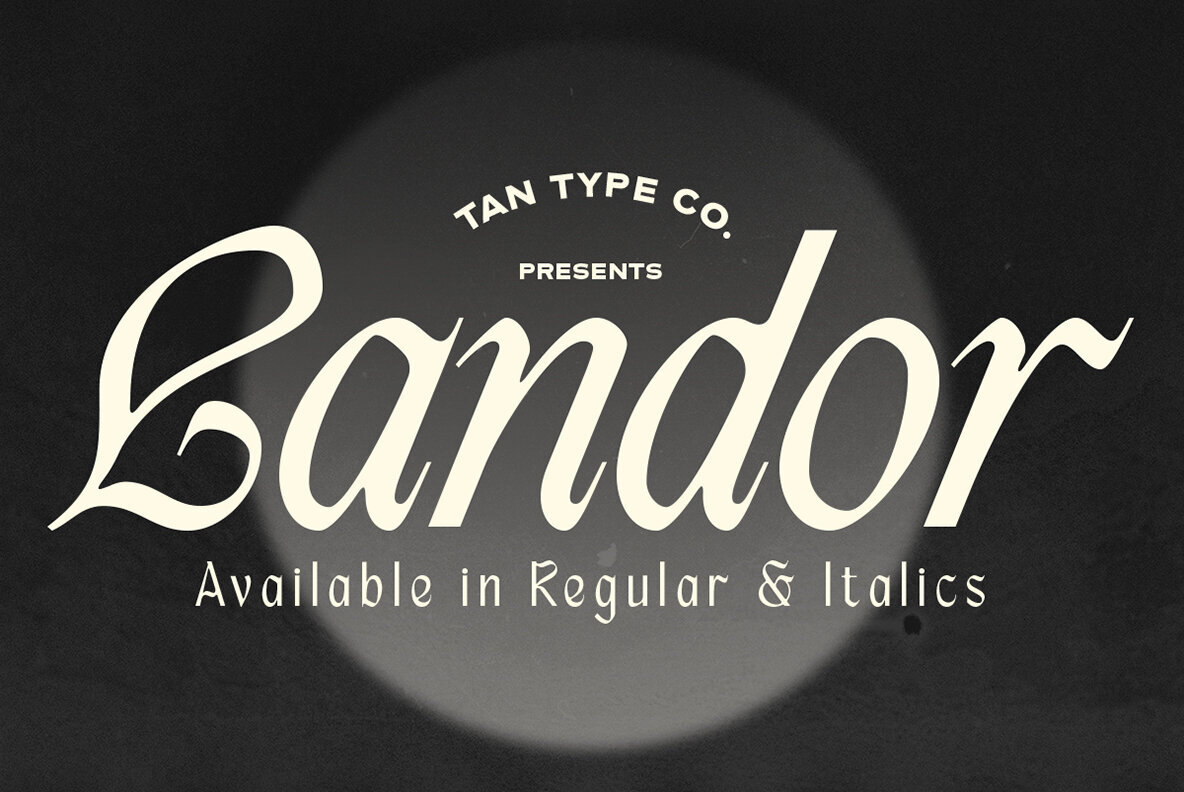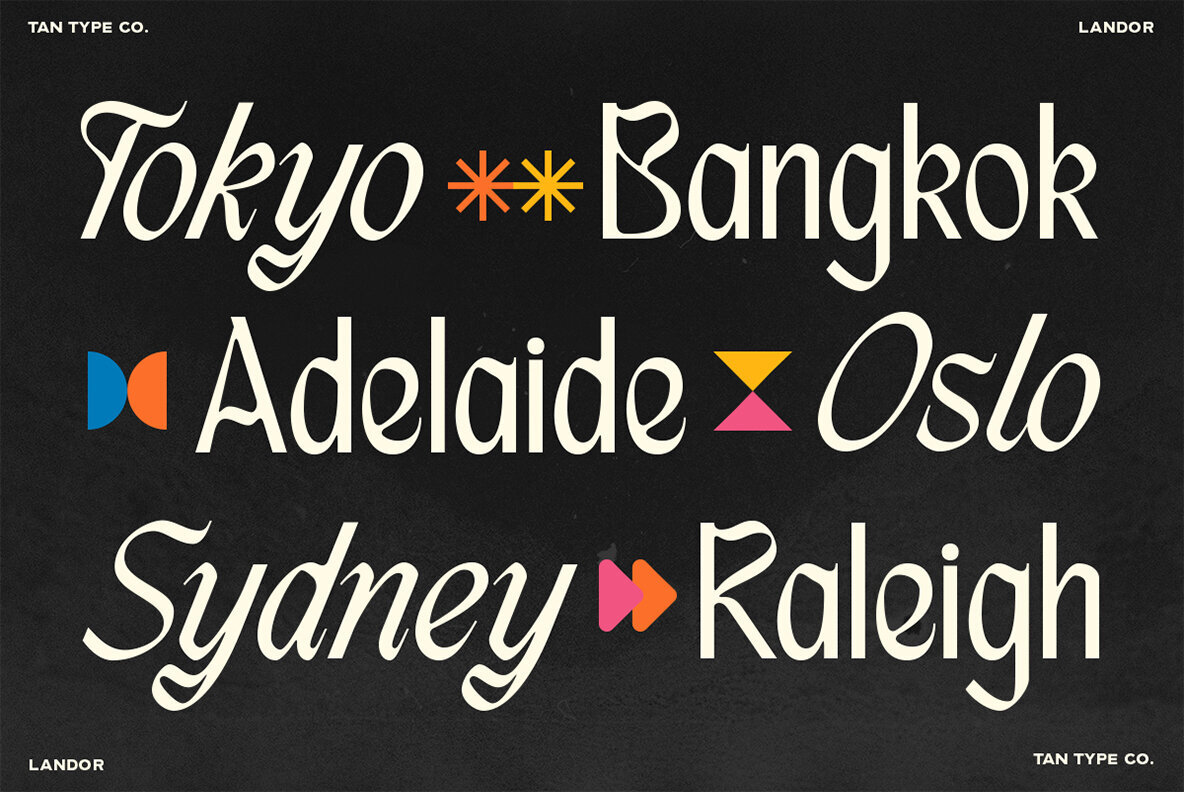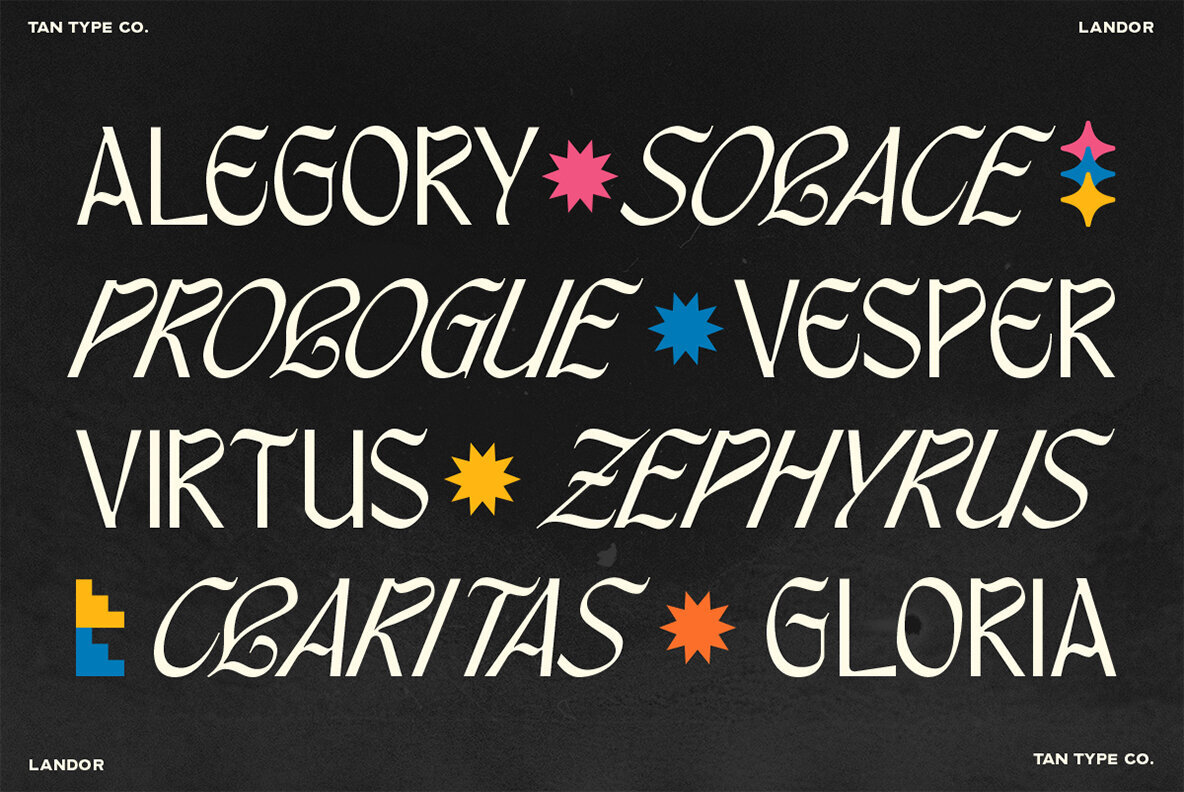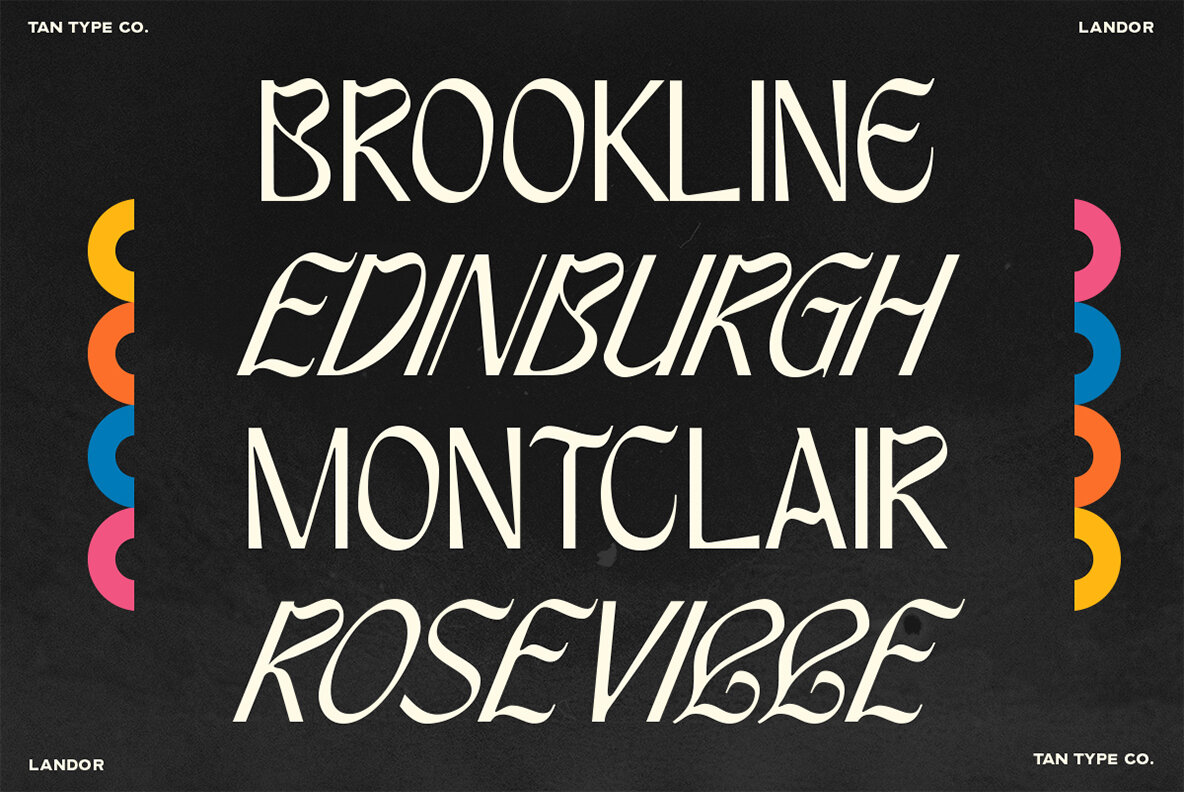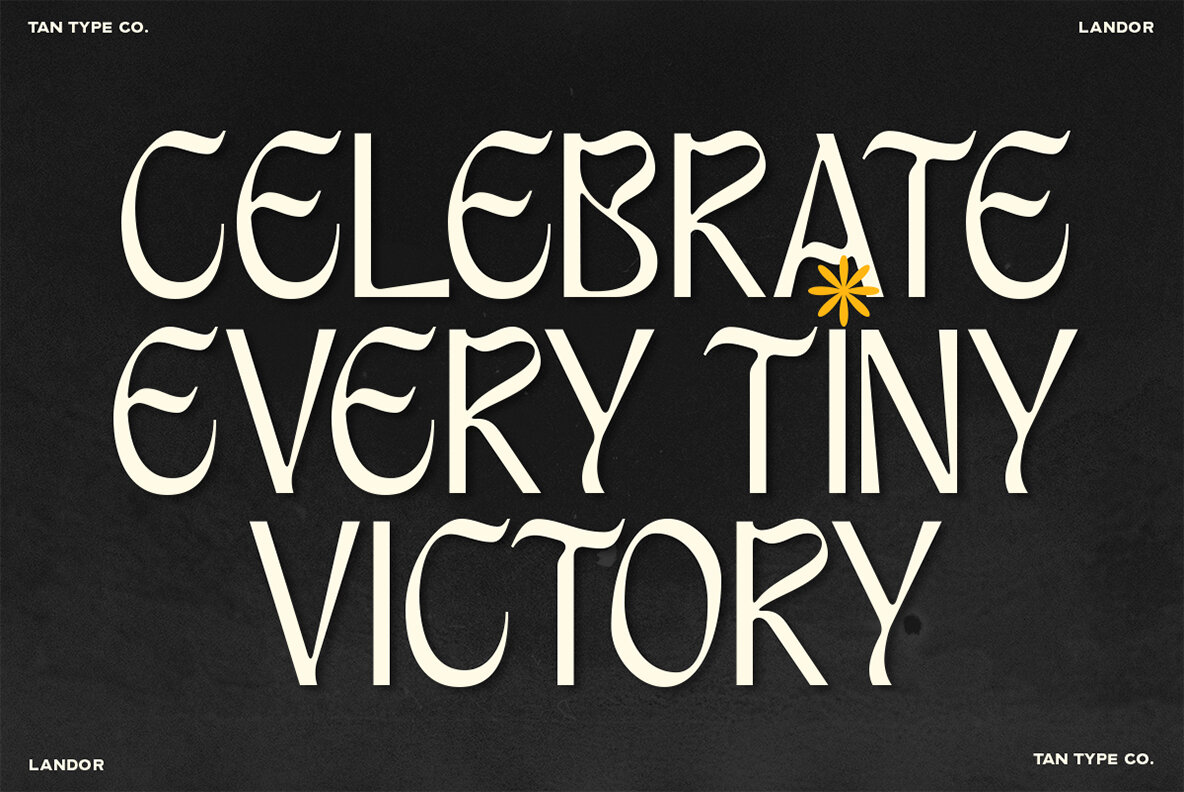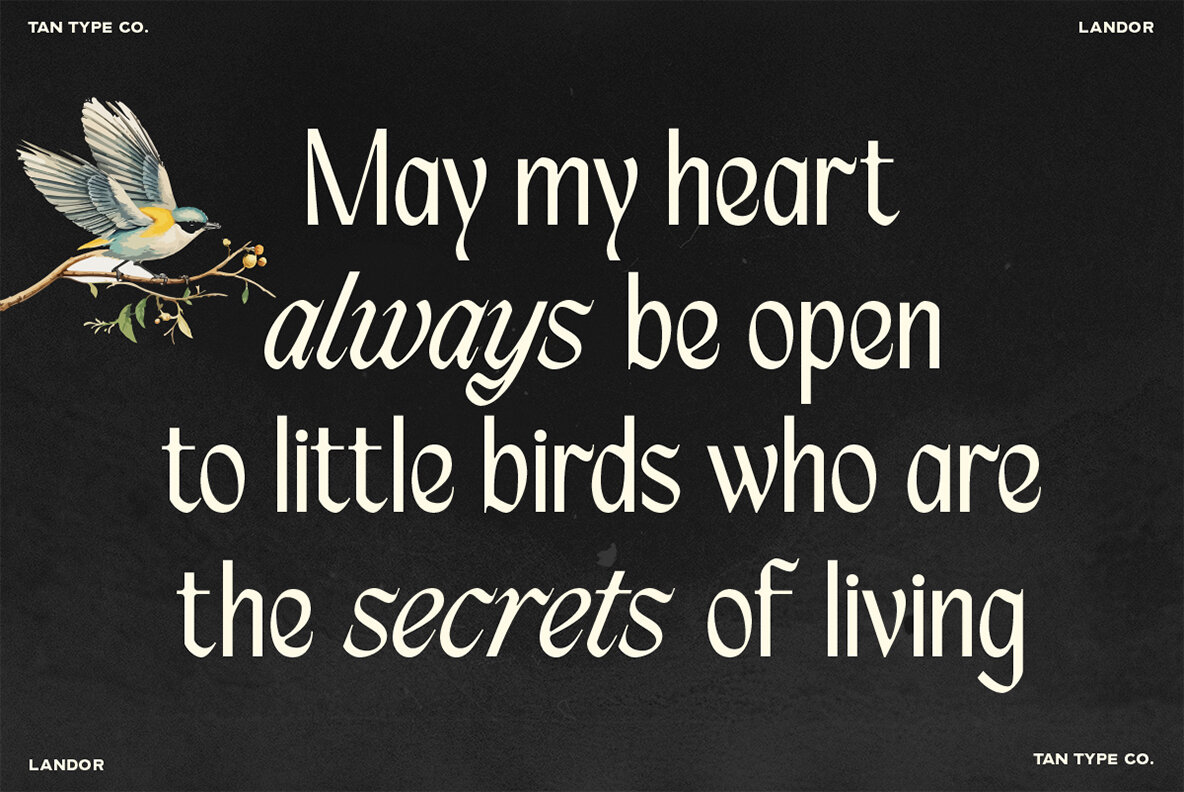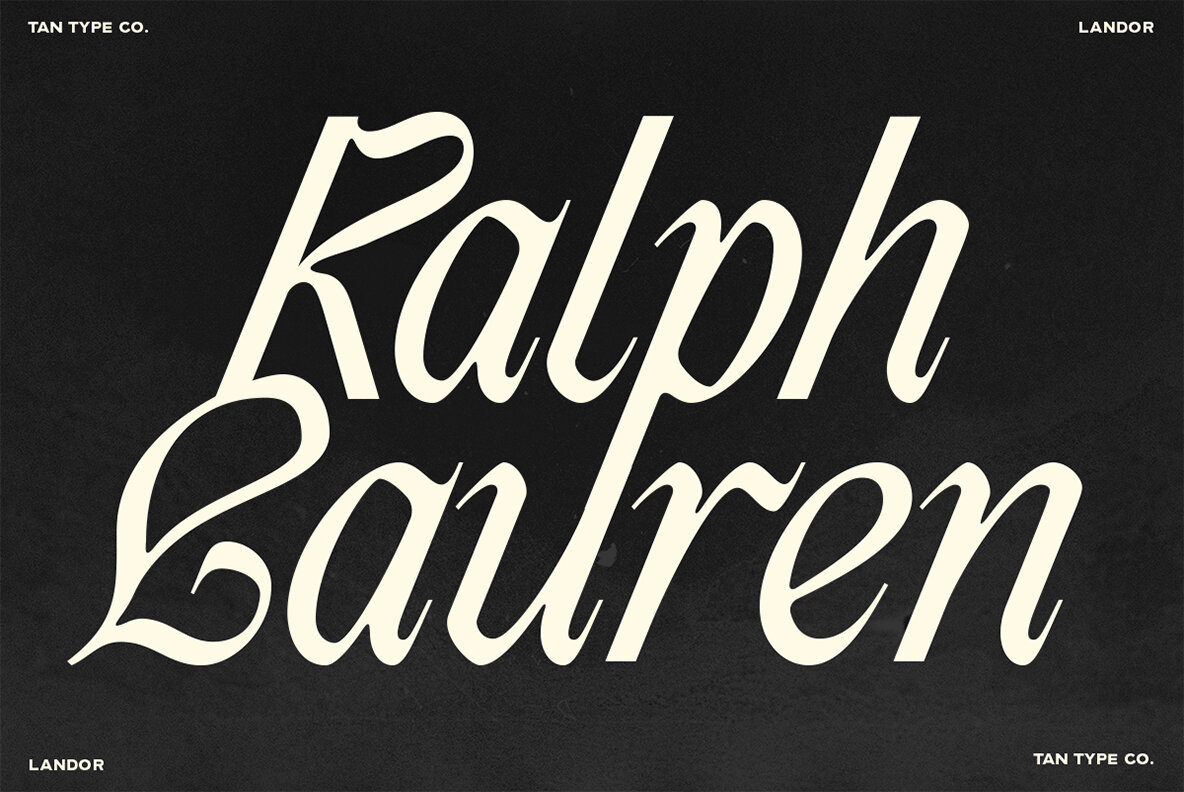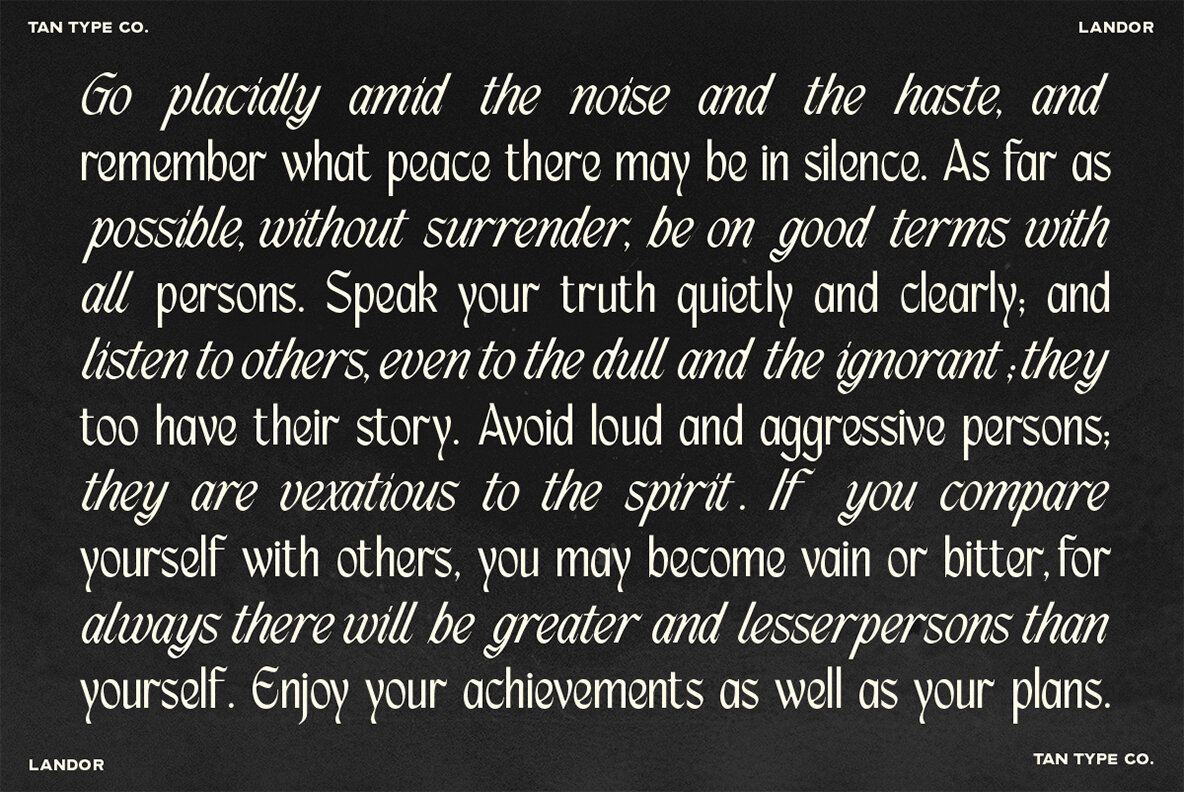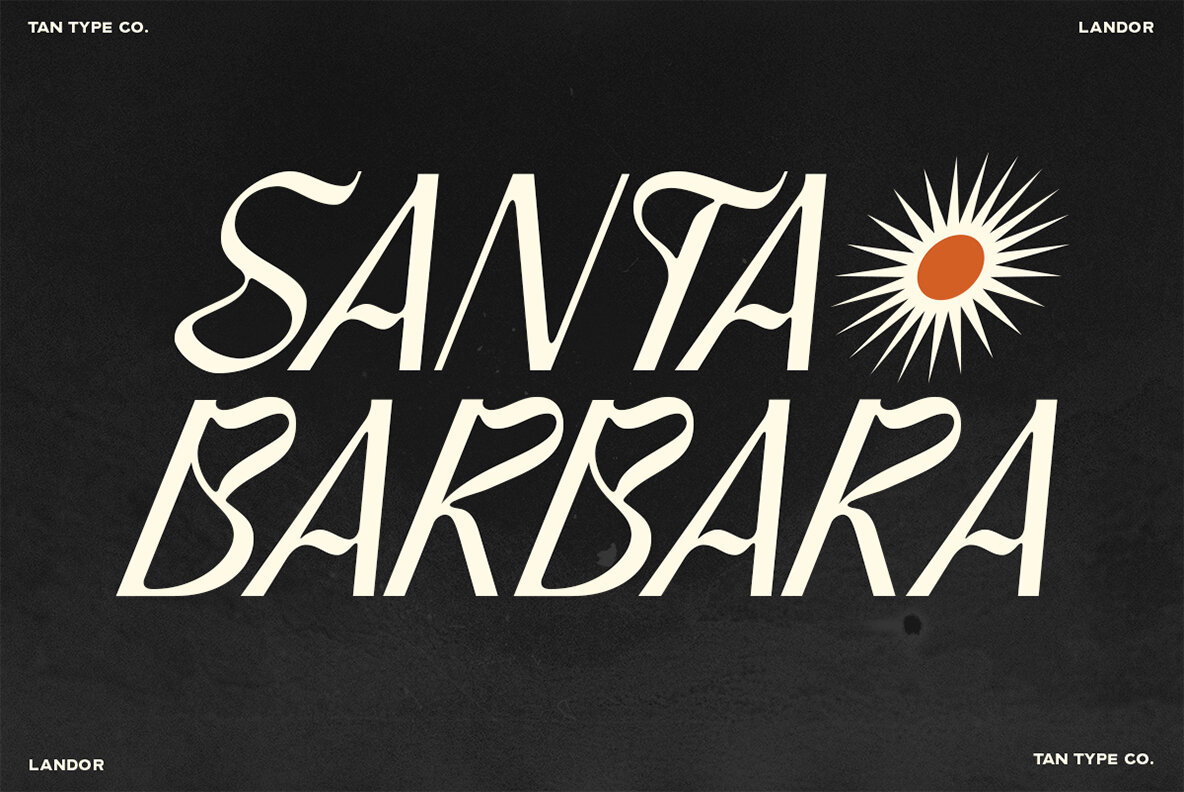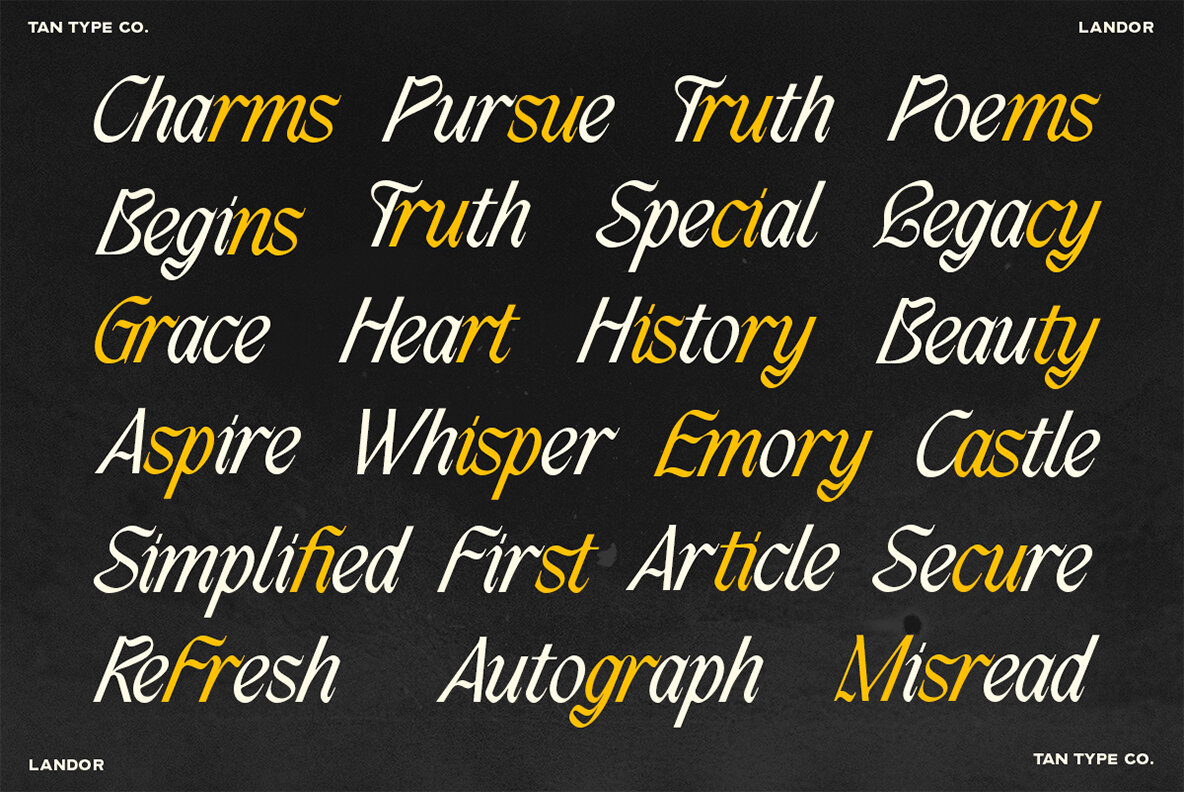
TAN LANDOR Font
TAN LANDOR Regular
TAN LANDOR Italic
Introducing TAN Landor, a typeface that redefines the traditional blackletter with an innovative twist. Balancing its classic gothic heritage with a modern, streamlined aesthetic, this font radiates both fun and elegance. Designed with playful curves and clear structure, TAN Landor infuses your creative projects with bold personality while maintaining readability and charm. Whether you're branding, designing posters, packaging, or creating editorial work, this typeface offers the perfect balance of funk and style. TAN Landor is compatible with most design software. Ensure your application reads OpenType fonts to access all available ligatures. Although the font functions seamlessly in platforms like Canva, some advanced OpenType features, such as special characters, may not be supported by these platforms.TAN Landor: A Bold Blackletter Typeface